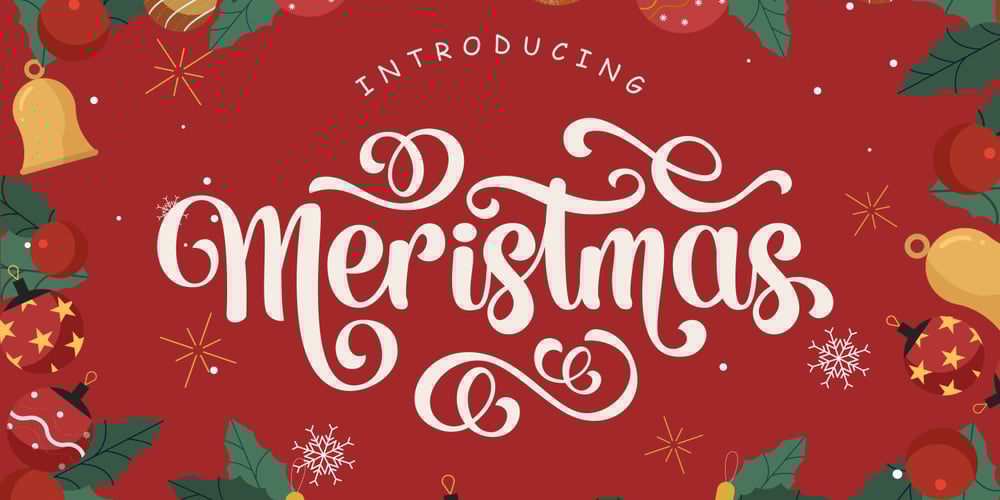
Meristmas Font Family was designed by Burhan Afif and published by HansCo. Meristmas contains 1 styles and family package options. Meristmas is a beautiful and sweet handwritten font. It is fresh, clean, and elegant. This font will look amazing in a great amount of projects, both formal and informal. Meristmas is the perfect font for making craft original and outstanding designs. Its casual charm makes it appear wonderfully down-to-earth, readable and, ultimately, incredibly versatile. You can also get alternate ornament / swashes in this font. Just type 0 – 9 and block one characters ( number ) / highlight and you can get alternate swash in here. If you use character Map please convert to .ttf format to get swash alternate.Comes with a full uppercase, lowercase, numbers and punctuation + standard multilingual support. It’s great for branding, logo designs, lettering, logotype, craft, posters, packaging and much more. We recommend using Adobe Illustrator or Photoshop.Tutorial how to Install & use Alternate / Special Character : https://hanscostudio.com/tutorial/Enjoy!